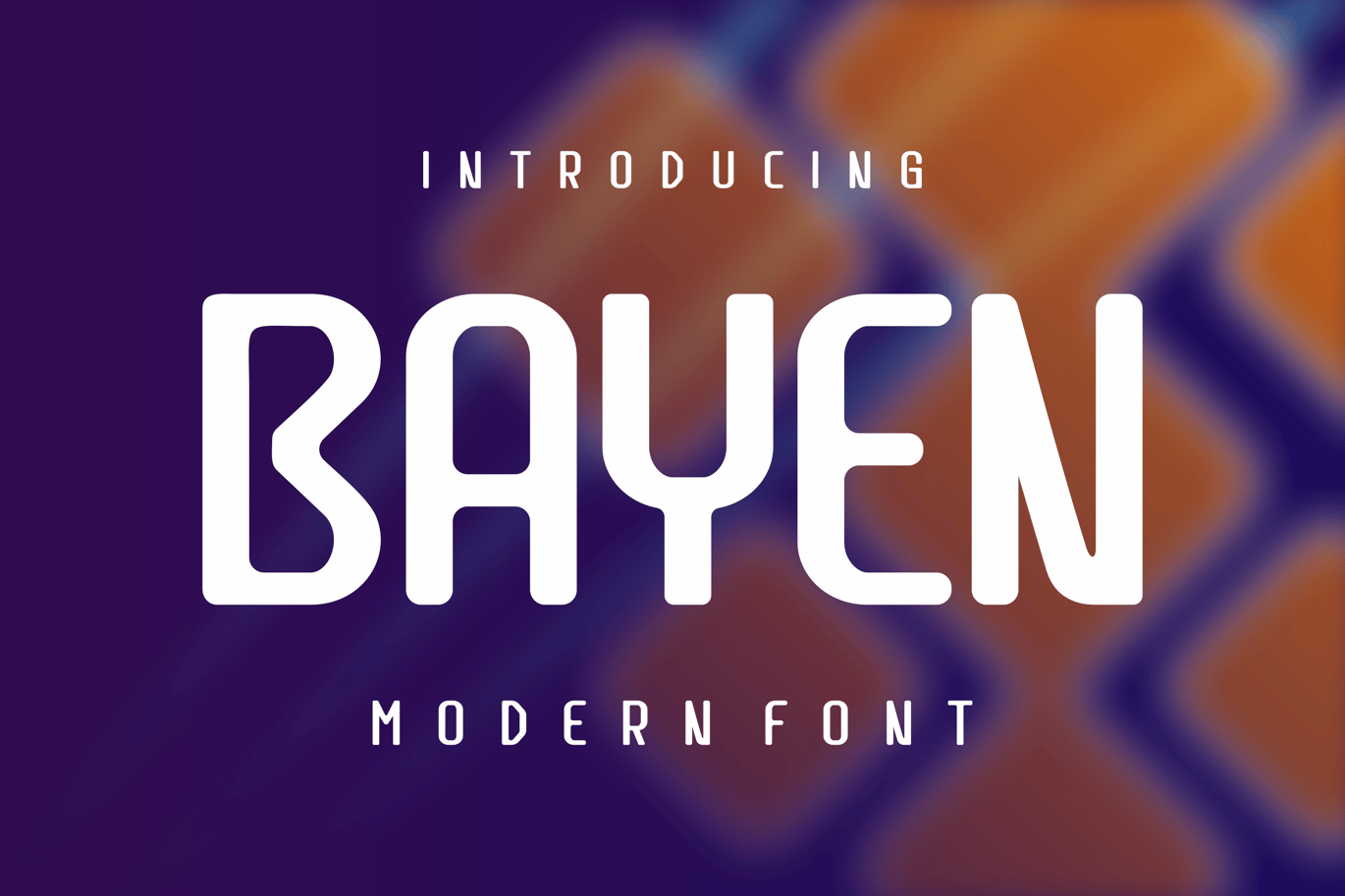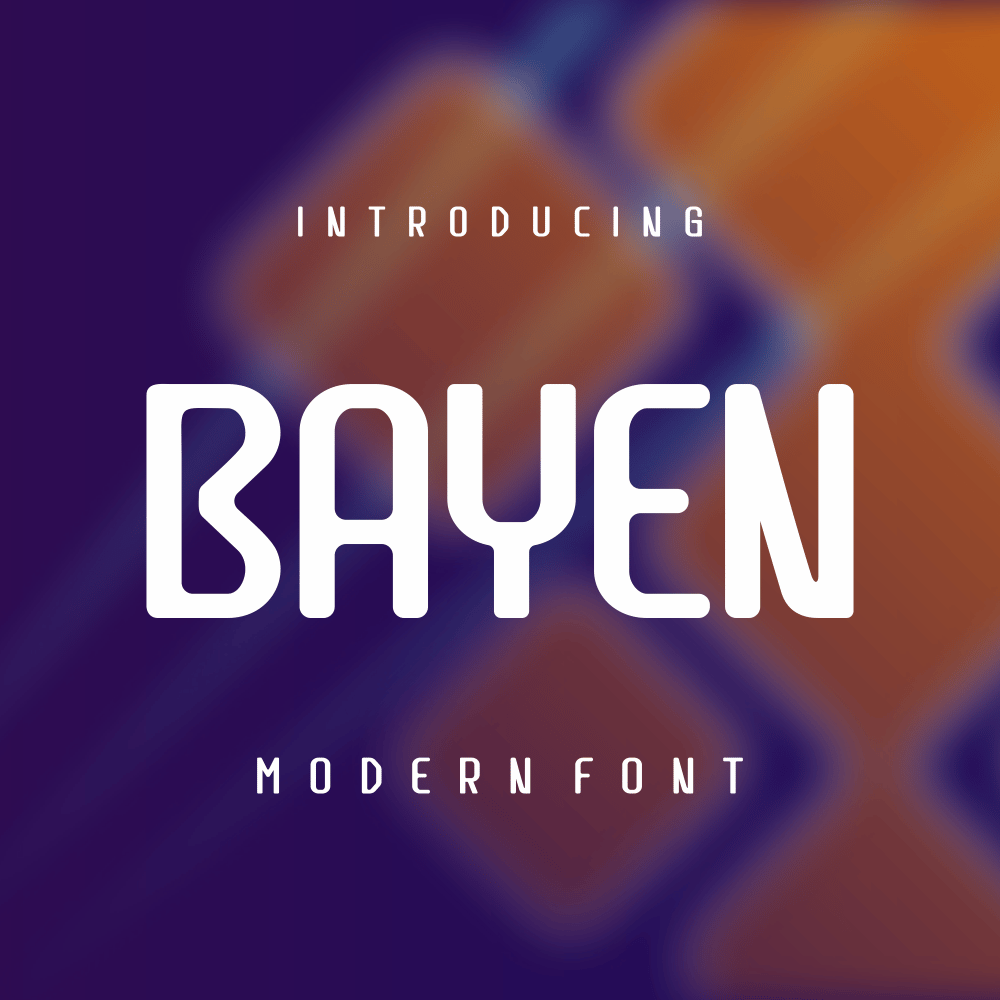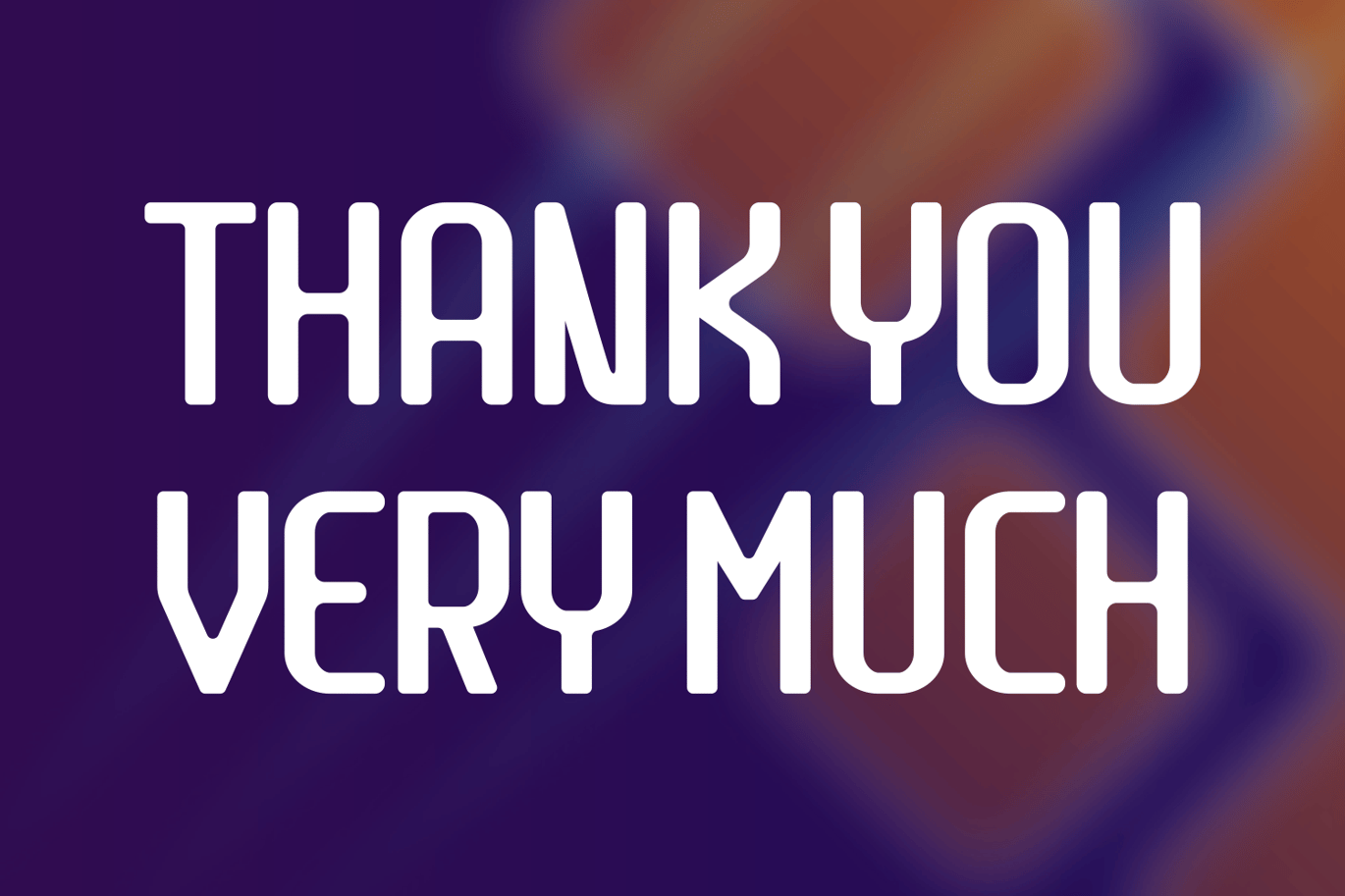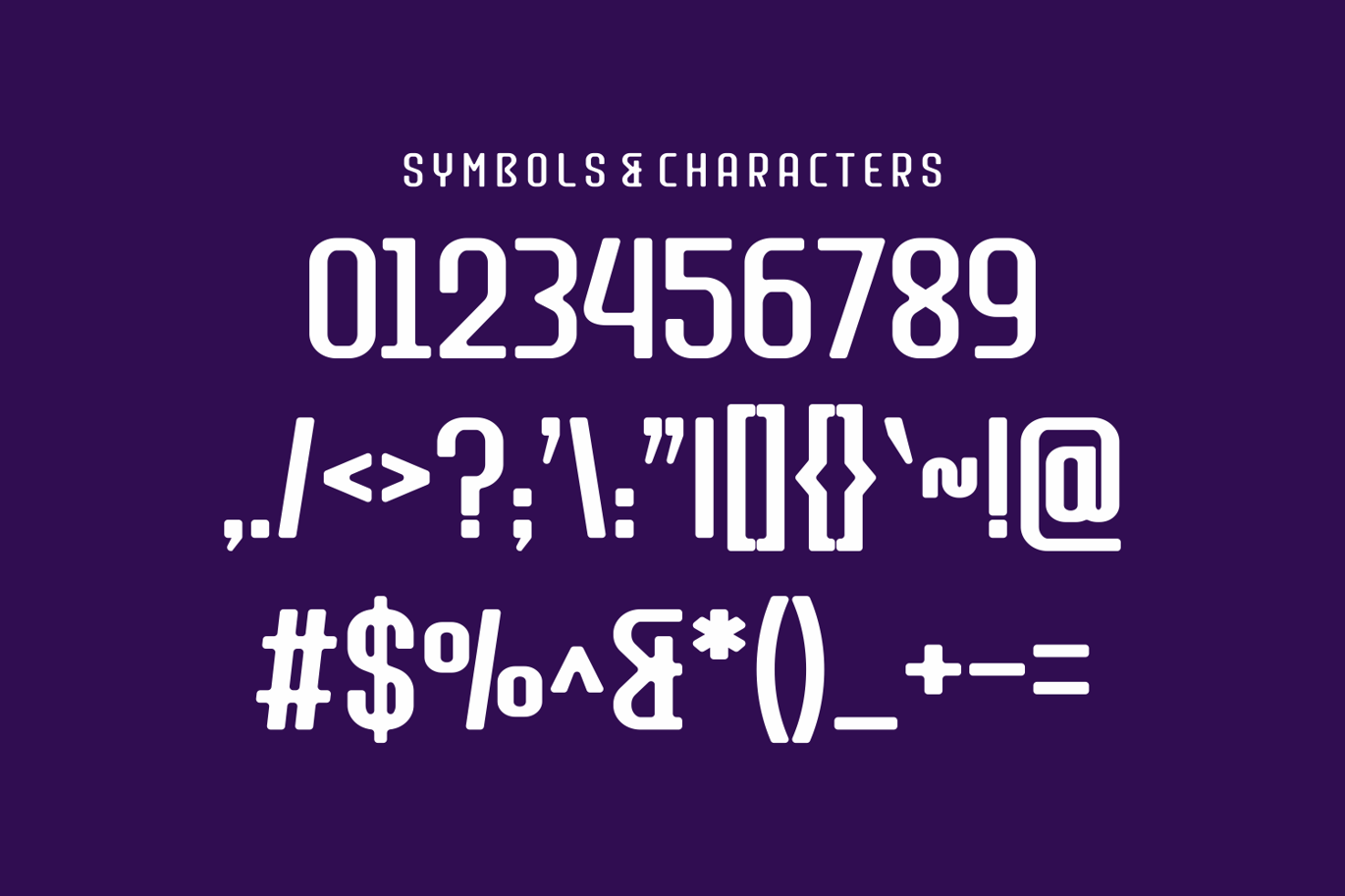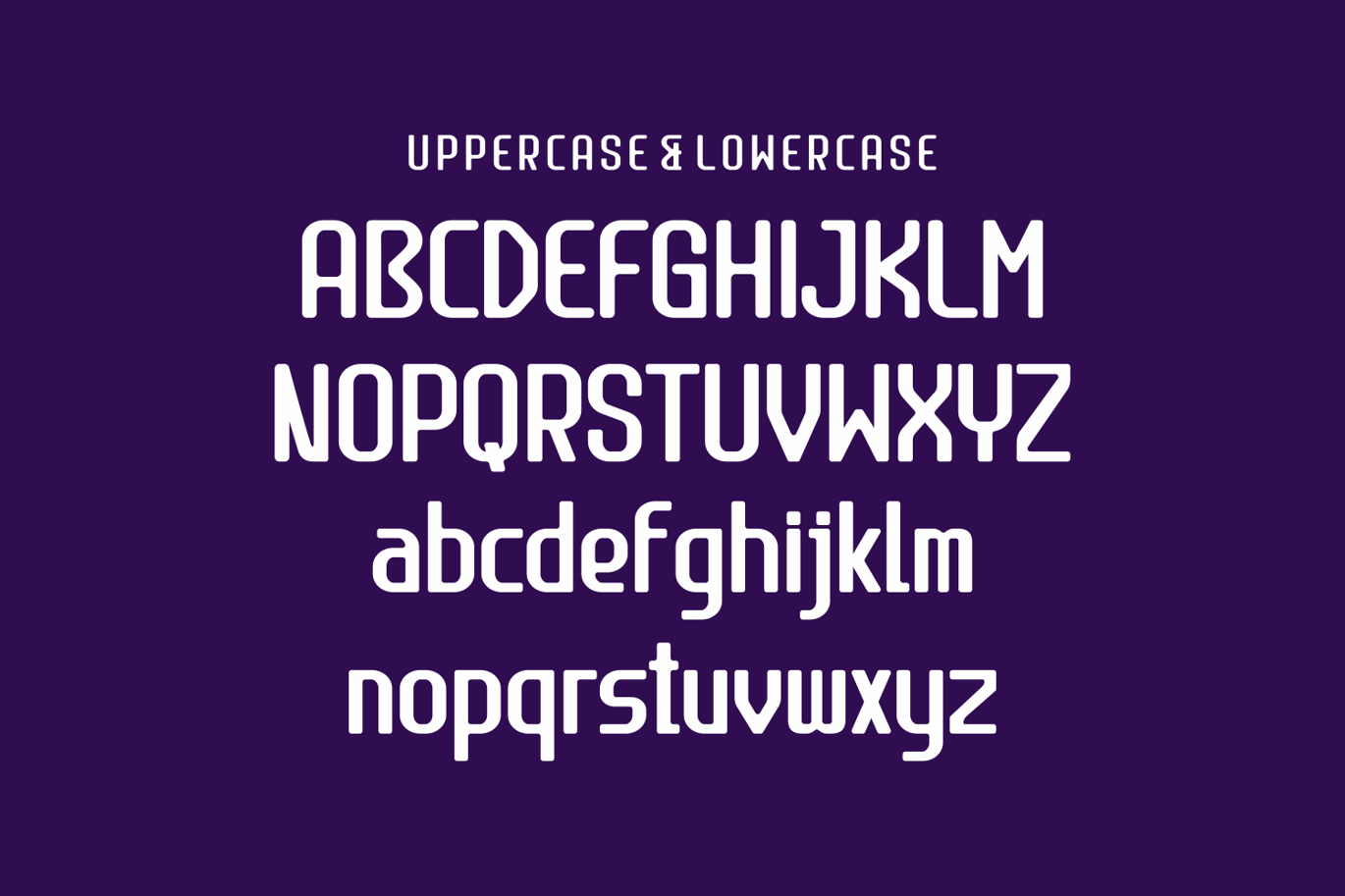
Bayen – Rounded Font
Perfectly suited on print/screen. it’s perfect for Branding, name card, poster, logo, magazine,
cover, banner, t-shirt and headers, or even large-scale artwork.